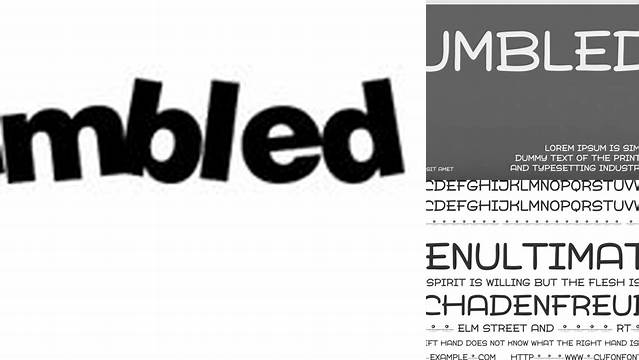
Jumbled Font TTF: Free Download Options
Hey guys! Ever been on the hunt for that perfect jumbled font to give your project a unique, chaotic vibe? You know, the kind that looks like letters had a wild party and ended up scattered all over the place? Well, you're in the right spot! We're diving deep into the world of jumbled fonts, specifically those in the TTF (TrueType Font) format, and where you can snag them for free. Trust me, finding the right font can seriously elevate your design game, whether you're working on a poster, a website, or even just a fun social media graphic.
What's the Deal with Jumbled Fonts?
So, what exactly is a jumbled font? It’s basically a typeface where the letters appear disordered, mixed up, or otherwise non-uniform. Think ransom note vibes, but with a touch of artistic flair. These fonts can add a sense of playfulness, urgency, or even mystery to your projects. Using a jumbled font can make your text stand out and grab attention, which is crucial in today's visually saturated world. But like any design element, it's all about using it effectively. Too much jumble, and your message might get lost in the chaos. Just the right amount, though, and you've got a design that's both eye-catching and memorable.
1. Jumbled Fonts: A Comprehensive Overview
Understanding the Essence of Jumbled Fonts
Jumbled fonts are more than just a random assortment of letters; they are a deliberate design choice to convey a specific mood or message. Think about the impact of a neatly aligned, classic font versus the visual chaos of a jumbled one. The latter can evoke feelings of urgency, playfulness, or even a sense of unease, depending on how it's used. The beauty of a jumbled font lies in its ability to break away from the conventional and add a unique personality to your design. These fonts often mimic handwritten styles or distressed typefaces, making them perfect for projects that need a human touch or a vintage feel. But remember, the key is to use them sparingly and strategically. A jumbled font can be incredibly effective, but overusing it can lead to visual clutter and make your text difficult to read.
The Psychology Behind Jumbled Typography
Believe it or not, there's a psychology behind typography. The fonts we choose can subtly influence how people perceive our message. Jumbled fonts, in particular, can tap into our emotions and create a stronger connection with the viewer. For example, a jumbled font with a playful design might be perfect for a children's book, while a more distressed, chaotic jumbled font could work well for a horror movie poster. Understanding this psychological aspect can help you make more informed decisions about which jumbled font to use for a particular project. Consider your target audience and the message you want to convey. A strong jumbled font can be a powerful tool, but it's essential to use it with intention.
Historical Context of Jumbled Lettering
Jumbled lettering isn't a new trend. In fact, it has historical roots in various forms of art and design. Think about the early days of printing, when imperfections in the typesetting process sometimes resulted in letters that weren't perfectly aligned. This unintentional “jumbling” of letters often added character and charm to printed materials. Over time, designers began to intentionally incorporate these imperfections into their work, creating the jumbled fonts we know and love today. Looking back at the history of typography can give you a deeper appreciation for the art and craft behind jumbled fonts and inspire you to use them in creative ways.
2. TTF Format: The Gold Standard for Fonts
The Technical Advantages of TTF
We touched on TTF earlier, but let's dive a little deeper into why it's considered the gold standard for fonts. TTF (TrueType Font) is a vector-based font format, which means it uses mathematical formulas to define the shape of each character. This is a crucial advantage because it allows TTF fonts to be scaled to any size without losing quality. Whether you're using a tiny font on a website or a massive font on a billboard, it will look crisp and clear. This scalability is a major selling point for designers, who need fonts that can adapt to a variety of applications. Additionally, TTF fonts are widely supported across different operating systems and software, making them incredibly versatile.
TTF vs. Other Font Formats (OTF, etc.)
While TTF is a popular format, it's not the only one out there. OTF (OpenType Font) is another common format that offers some advantages over TTF, such as support for more advanced typographic features and a larger character set. However, TTF remains a solid choice for most users due to its widespread compatibility and scalability. Other font formats, like EOT (Embedded OpenType) and WOFF (Web Open Font Format), are primarily used for web design. When you're searching for a free jumbled font, you'll likely encounter both TTF and OTF options. TTF is generally the safer bet for ensuring compatibility across different platforms and applications.